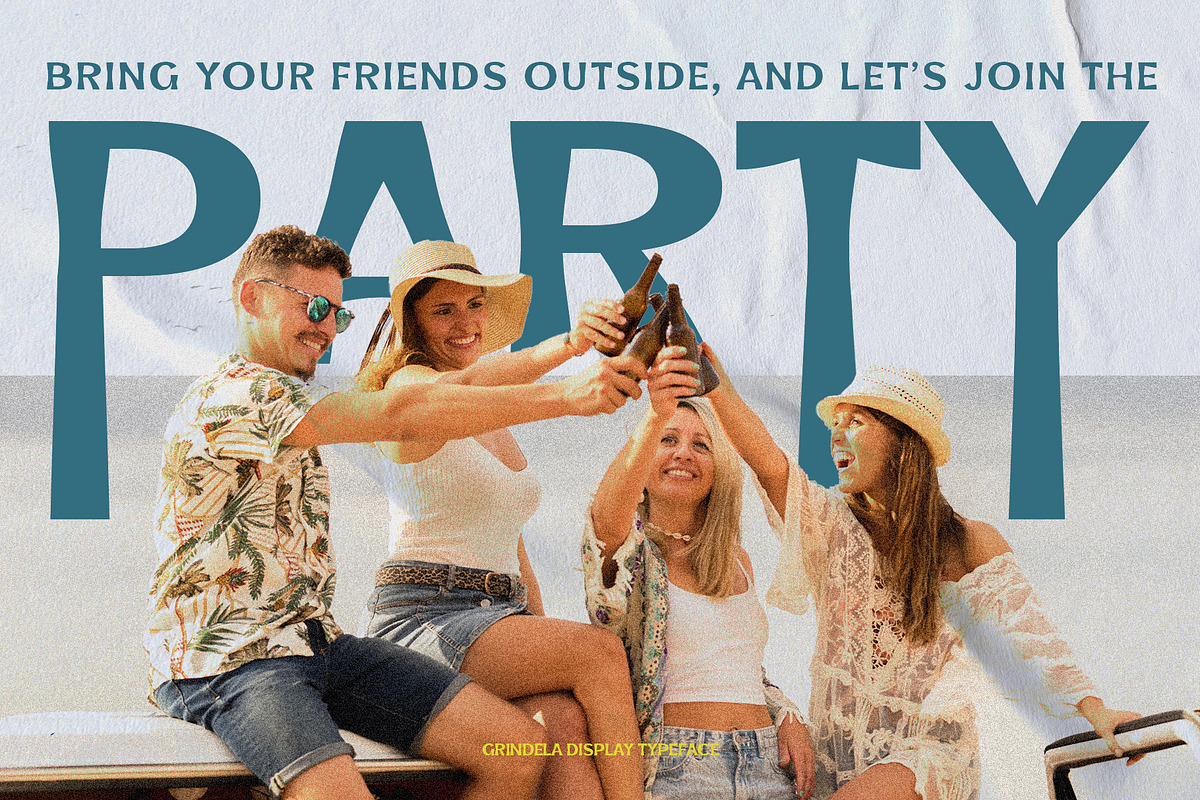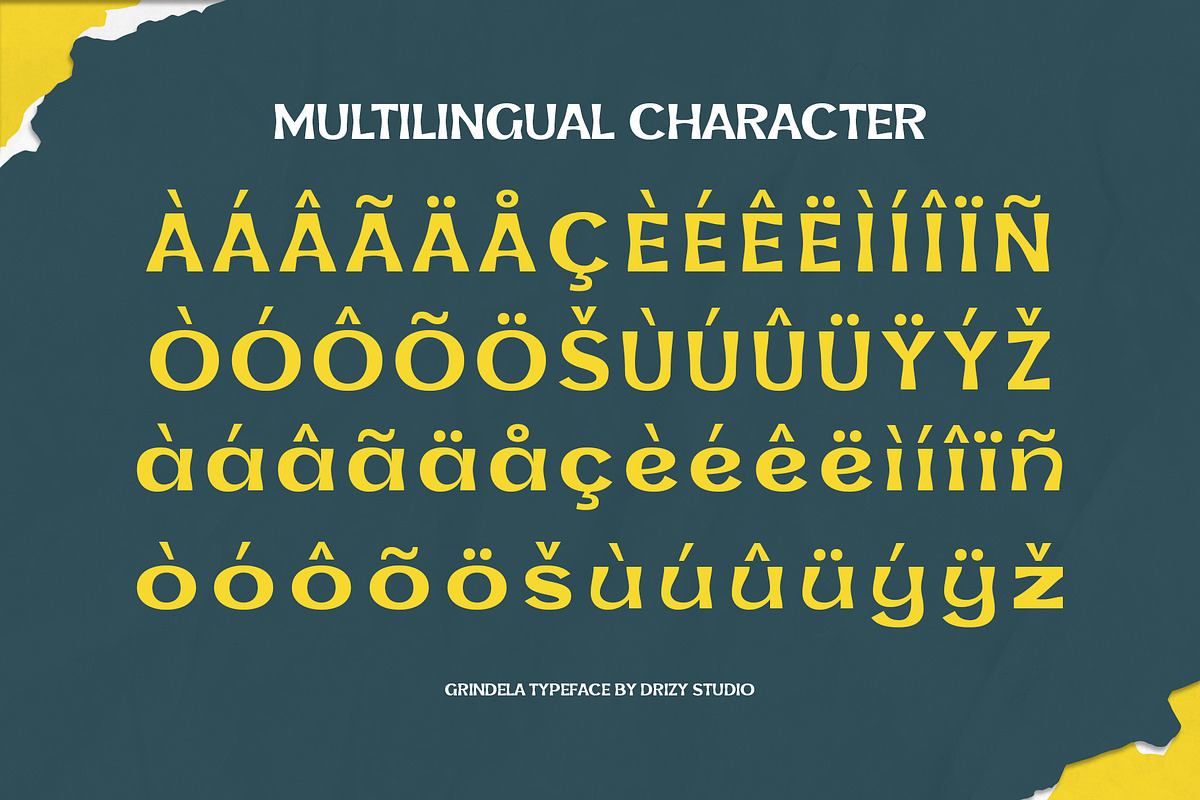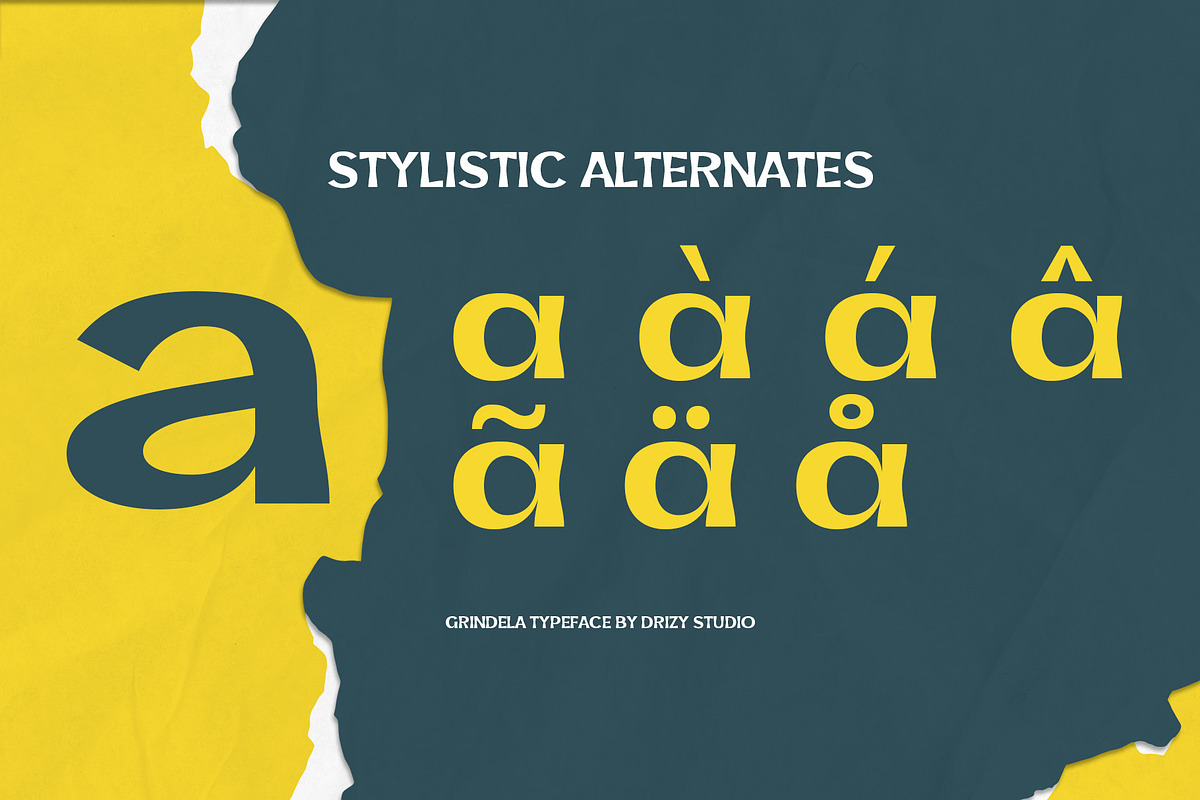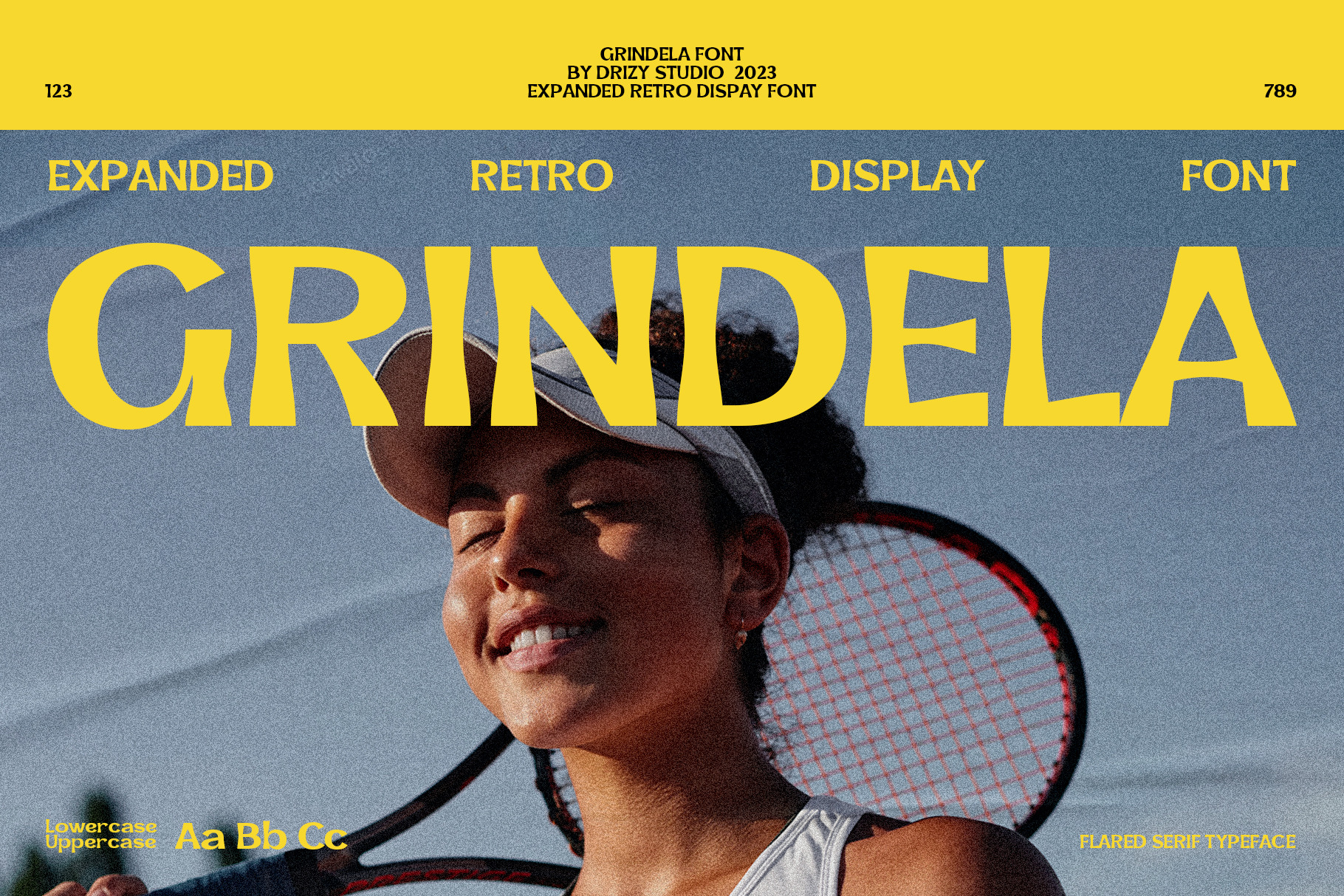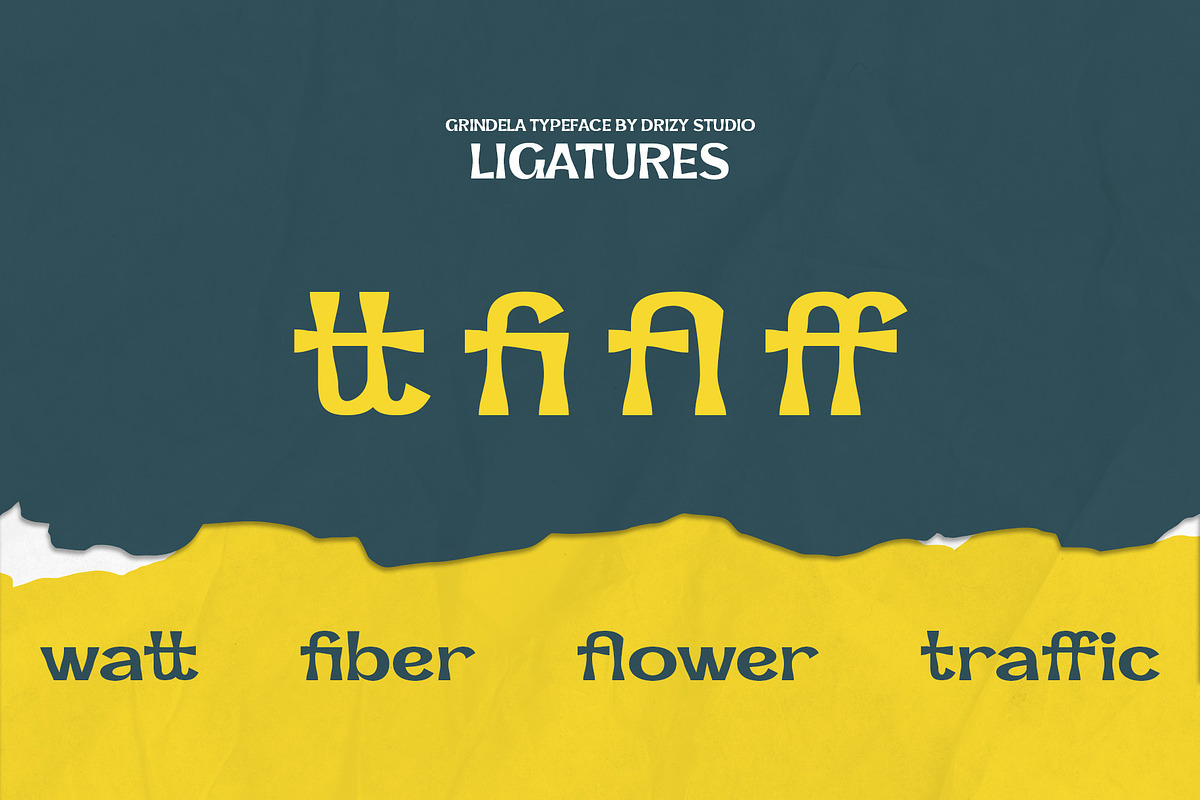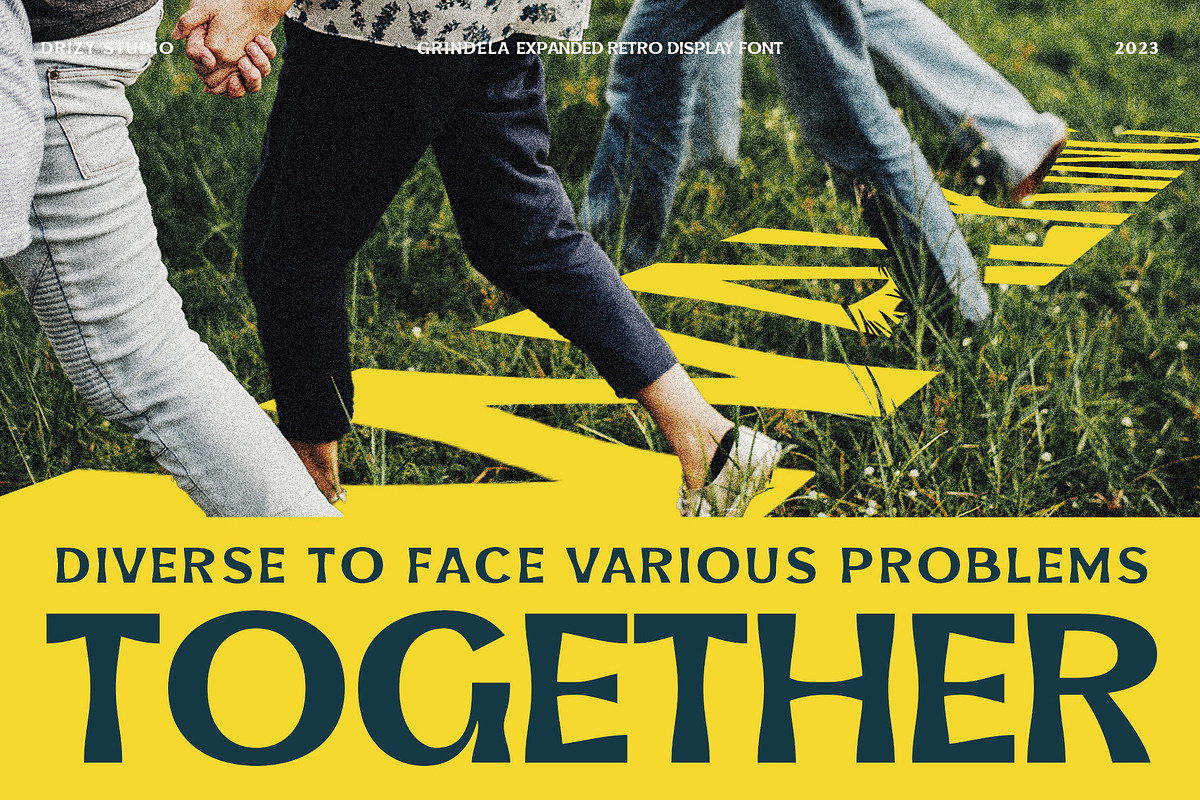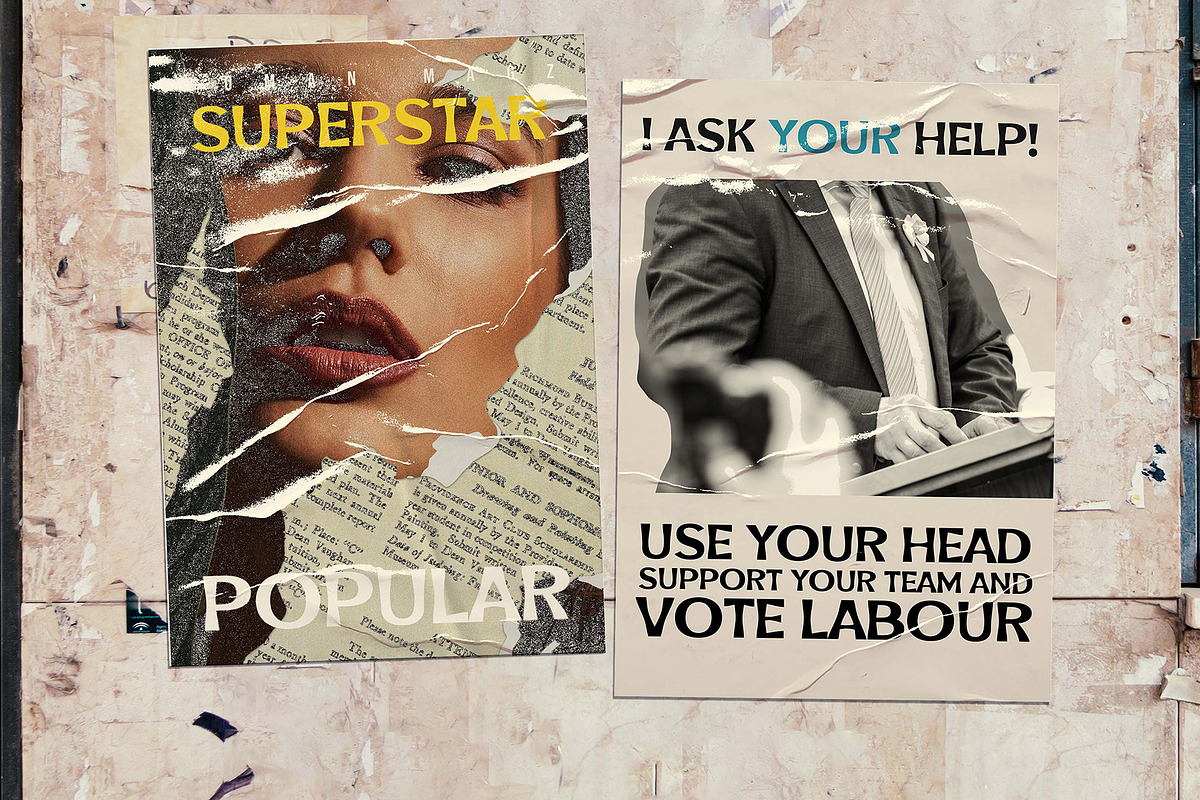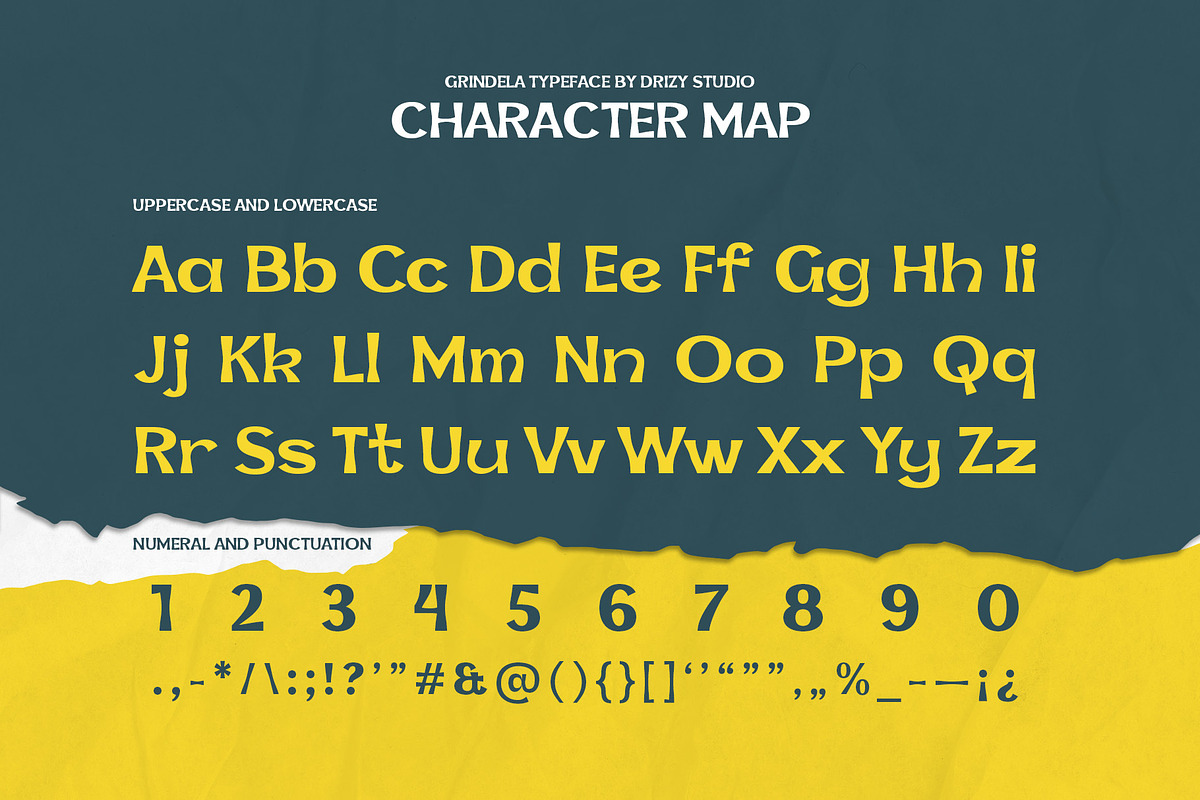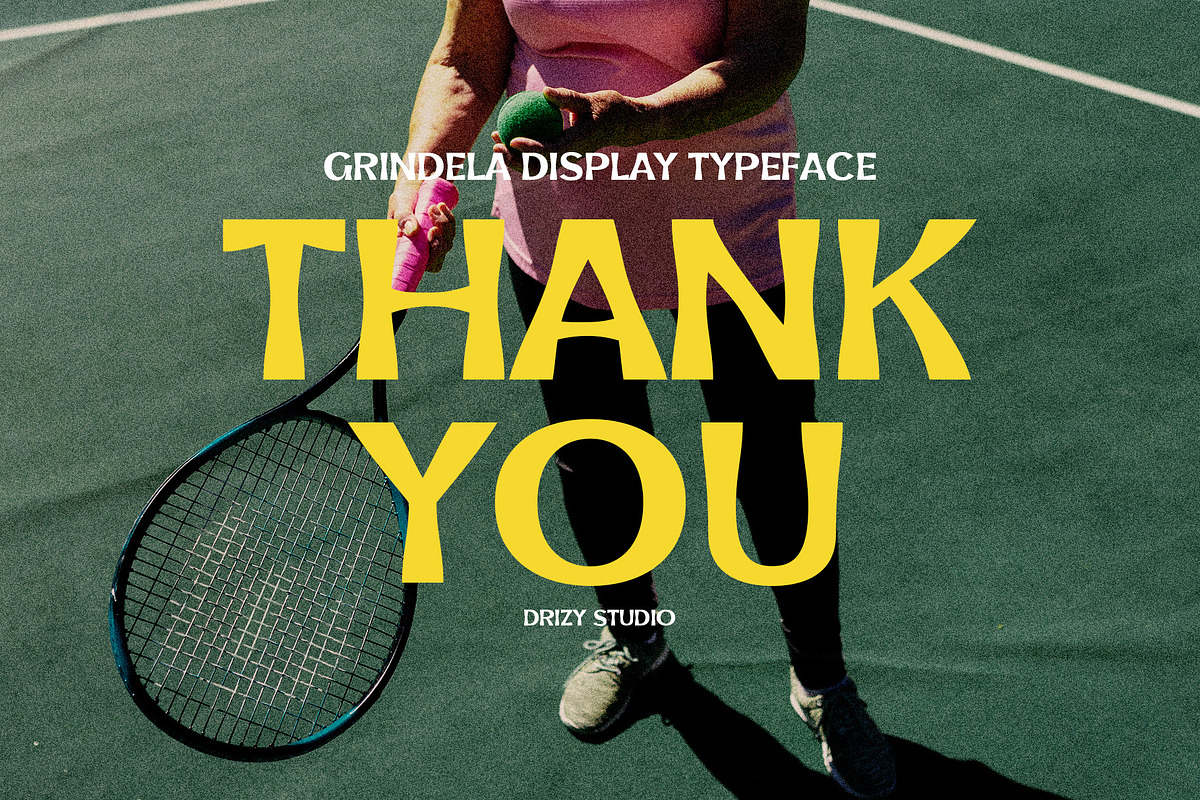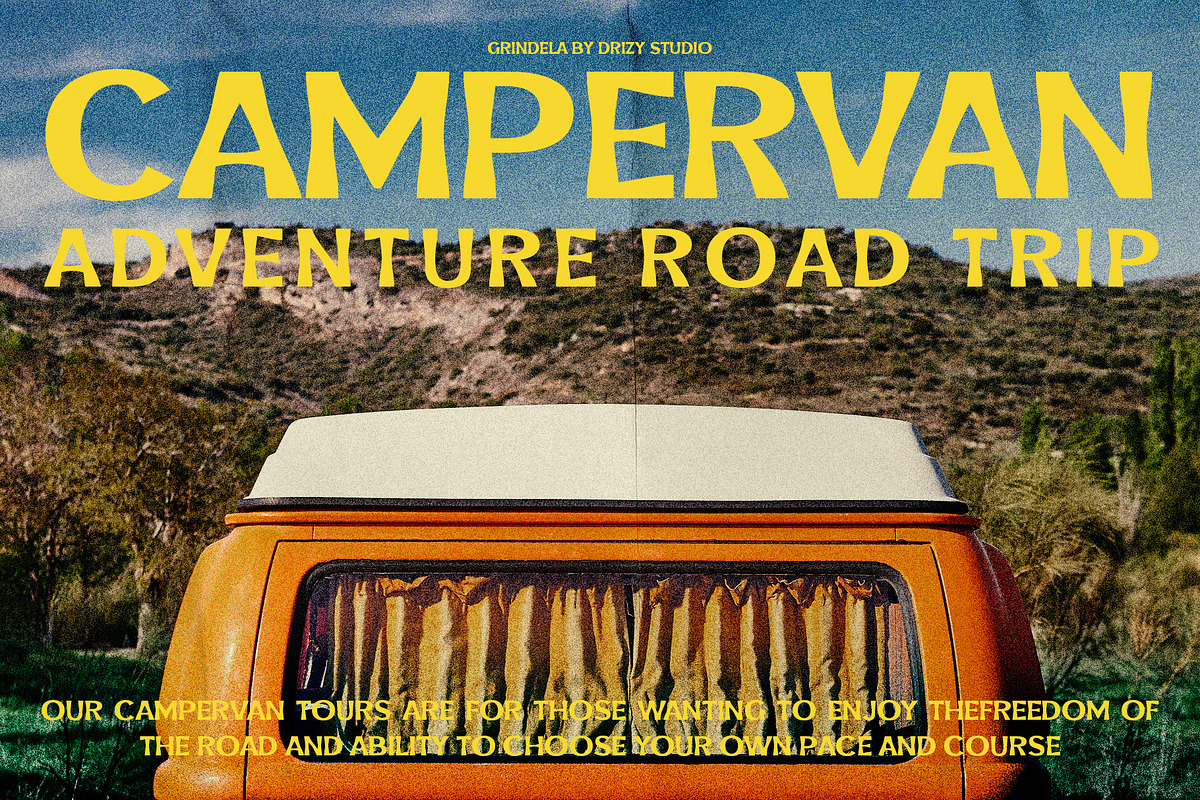
Grindela - Expanded Retro Font
Introducing Grindela! A flared retro font exudes a sense of timeless style of retro and flared style. This typeface is characterized by its gracefully exaggerated, flared, and often ornate letterforms, which lend a touch of sophistication and nostalgia to any design.
Grindela features: Uppercase & Lowercase Punctuation & Numbers Multilingual Support Ligatures Alternates